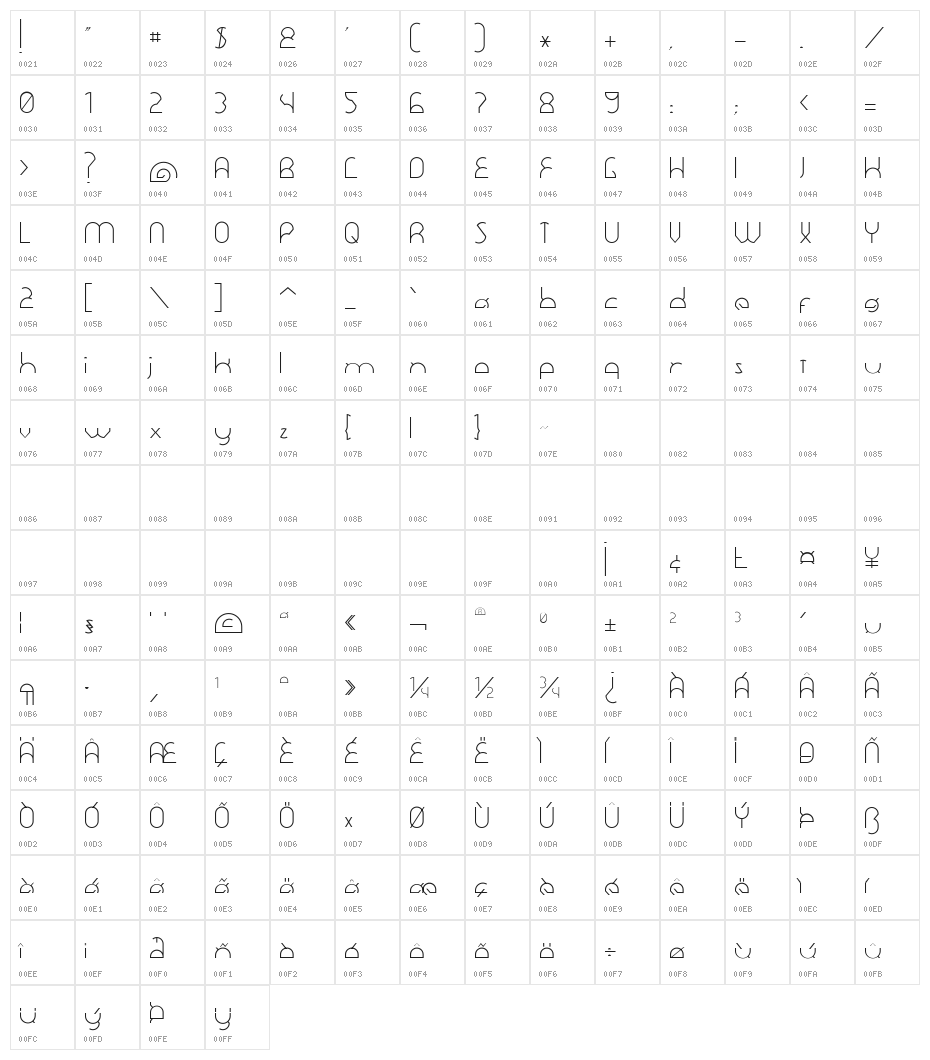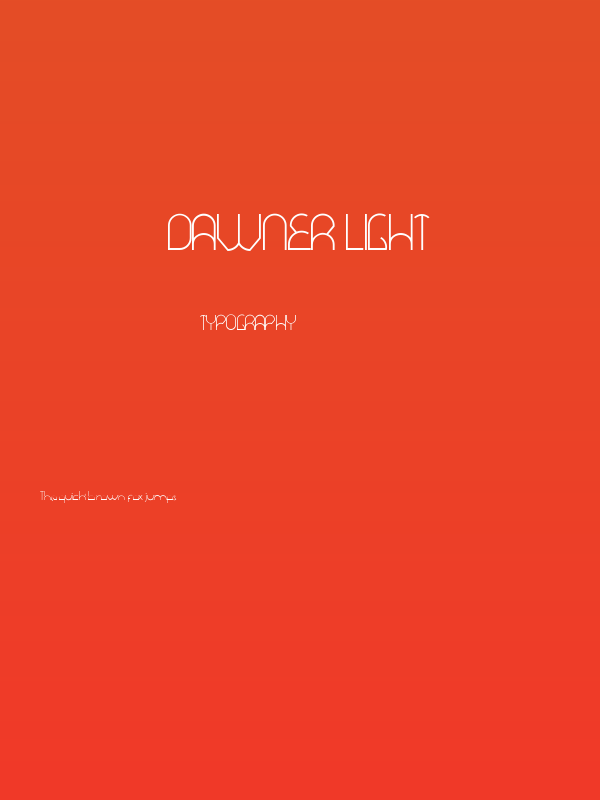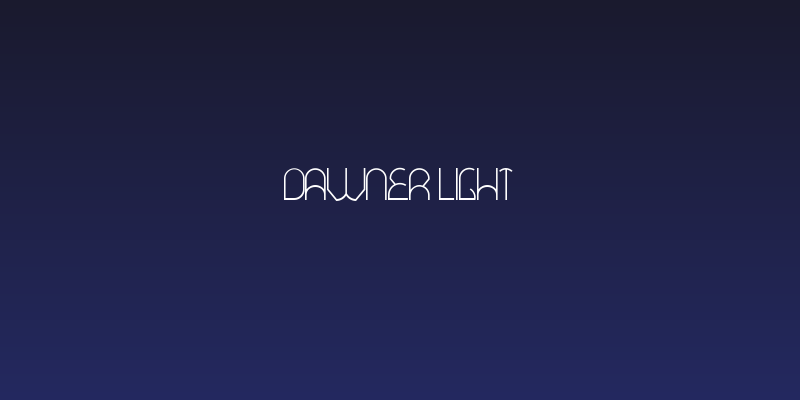
Dawner Light Font
Dawner Light Description
This font features a modern and minimalist design with geometric shapes and clean lines. The uppercase letters are characterized by their uniform height and rounded edges, giving them a futuristic appearance. The lowercase letters maintain a similar style, with a consistent stroke width that enhances readability. Numbers are designed with a sleek and contemporary look, complementing the overall aesthetic. Special characters are crafted with the same attention to detail, ensuring a cohesive appearance across all glyphs. This font is ideal for projects that require a modern and sophisticated touch.
| Use Case | Headlines, Logos, Digital Media |
| Proposed Projects | Ideal for branding, advertising, digital media, and modern web design projects. |